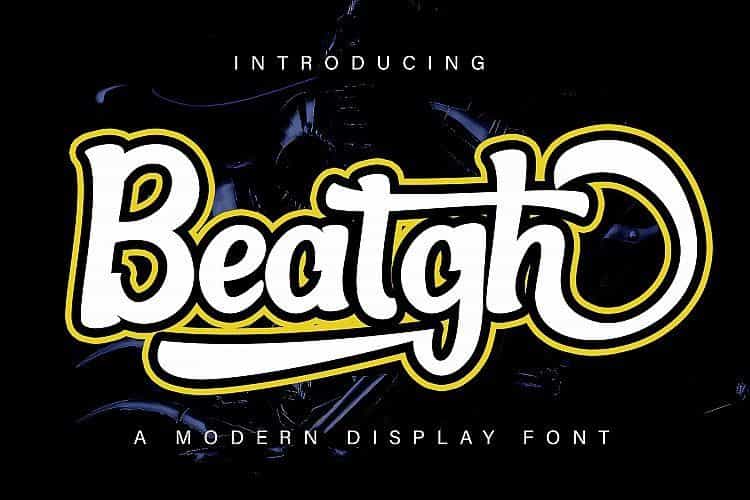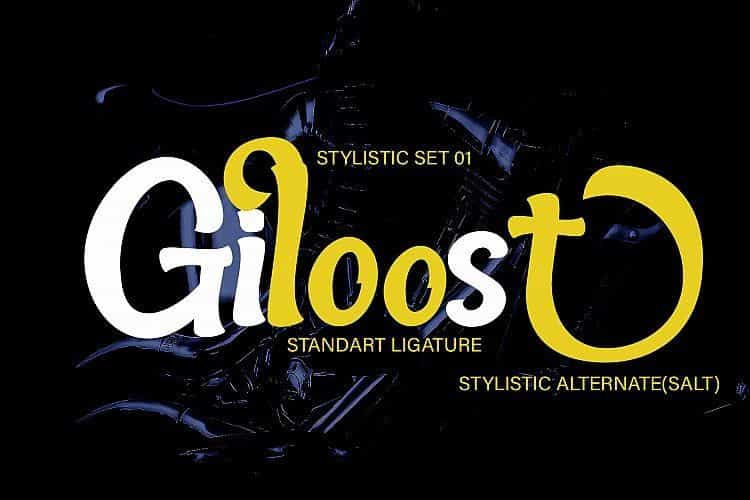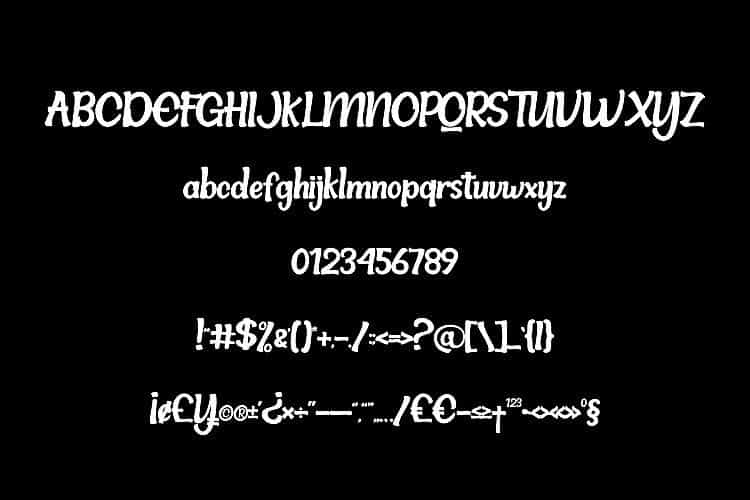
Beatgh Font is a script typeface with strong patterns. This font is of the bold, cute, firm and trendy kind. Absolutely great helps for you to meet the latest design needs that are in vogue today.